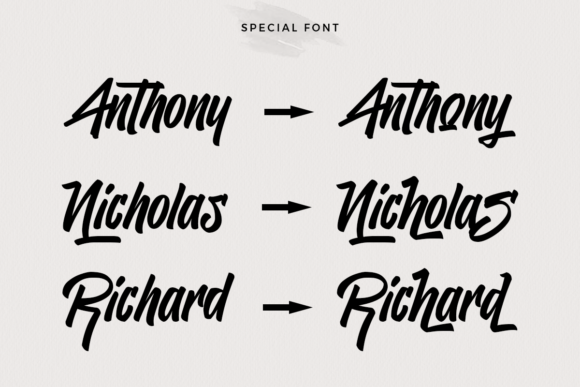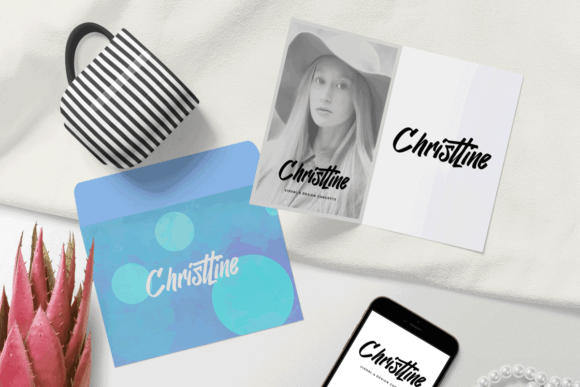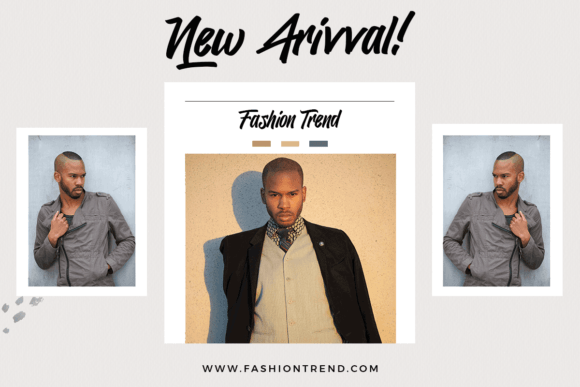
Introduction to Jacksilver Font
Have you ever been stuck on a creative project, staring at a blank canvas, and searching for the perfect font to bring your design to life? That’s exactly where I was a few months ago. I was working on a new branding project for a sports apparel company, and I needed a font that screamed ‘athletic’ and ‘dynamic’. After hours of browsing through font collections, I stumbled upon the Jacksilver Font – a cool brushed display font that instantly caught my attention.
The moment I started using Jacksilver Font, I knew it was the perfect fit for my project. Its bold and edgy design gave my design a high-quality feel, and I loved how it looked great on a transparent background. What I appreciate most about this font is its versatility – it’s perfect for designers who want to add a touch of modernity to their designs without compromising on readability. And the best part? It’s a free download, making it an excellent resource for designers on a budget.
Whether you’re working on a creative project or simply looking for a new design resource, Jacksilver Font is definitely worth checking out. Its unique blend of style and functionality makes it an invaluable addition to any designer’s toolkit. In this article, we’ll take a closer look at the features and benefits of this amazing font, so keep reading to learn more about what makes Jacksilver Font so special.
Key Features of Jacksilver Font
- High-quality design resource ideal for creative projects, offering a unique and elegant touch.
- Features a transparent background, making it easy to overlay on any image or design without visual clutter.
- Supports a range of resolutions, including high-resolution designs for print and web applications.
- Unique characteristics include a modern, sleek aesthetic and a wide range of typographic styles, making it suitable for various design projects.
Honest Review: Jacksilver Font
As a designer, I’m always on the lookout for high-quality design resources to elevate my creative projects. Recently, I stumbled upon the Jacksilver Font, and I’m excited to share my honest review with you.
- ✨ Unique and modern design aesthetic that’s perfect for modern branding and creative projects
- ✨ High-quality font that’s crisp and clear, even at smaller sizes
- ✨ Transparent background, allowing for easy integration into any design project
- ⚠️ Limited character set, which may not be suitable for longer blocks of text
- ⚠️ Not suitable for use on low-resolution screens or print materials
Overall, I’m impressed with the Jacksilver Font. While it may not be perfect for every design project, it’s a great addition to any designer’s toolkit. Its modern design aesthetic and high-quality font make it a great choice for creative projects that require a touch of sophistication. Just be aware of its limitations, and you’ll be all set to create stunning designs with the Jacksilver Font.
The Jacksilver Font is a high-quality design resource perfect for creative projects that demand a unique and stylish touch. This versatile font is available for free download, making it an excellent addition to any design toolkit.
Tips for Getting the Most Out of Jacksilver Font
For best results, use the Jacksilver Font on a transparent background to create a seamless design experience.
Experiment with different font sizes and styles to add depth and visual interest to your design.
The Jacksilver Font is ideal for use in:
What is the recommended resolution for using the Jacksilver Font?
The Jacksilver Font is designed to work well at resolutions up to 300 DPI (dots per inch), making it suitable for a wide range of design applications, including print and digital media. However, for high-quality output, we recommend using a resolution of at least 300 DPI.